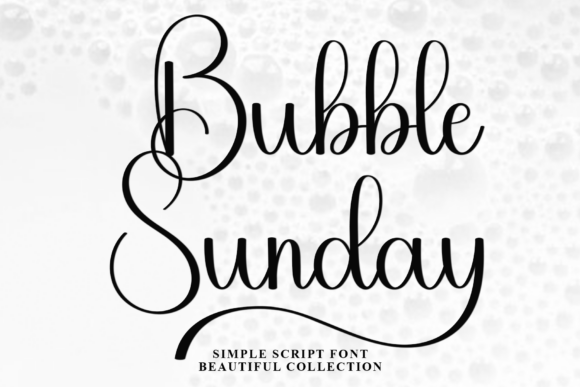
The Magic of Bubble Sunday Font: A Designer’s Delight
I’ll never forget the time I was working on a branding project for a trendy new cafe, and I just couldn’t find the right font to capture their playful yet sophisticated vibe. That was until I stumbled upon Bubble Sunday, a lovely and timeless handwritten font that instantly elevated my design game. In this article, I’ll share my love for this font, its features, and provide a comprehensive guide on how to use it to take your designs to the next level.
An Honest Review of Bubble Sunday Font
Bubble Sunday is a beautiful, handwritten font that has won my heart with its unique charm. Here’s what I love about it:
• ✨ Unique and beautiful touch: Every letter has a distinct character that adds a personal touch to your designs.
• 💫 Versatile: Perfect for creating eye-catching logos, branding, quotes, and more.
• 👍 Timeless: This font never goes out of style, making it a great investment for any designer.
While Bubble Sunday is an amazing font, it’s not without its quirks. Here are a few things to keep in mind:
• ⚠️ Occasional kerning issues: As with any font, you may need to adjust kerning for optimal results.
The Story Behind Bubble Sunday Font
Bubble Sunday was created by a talented font designer who wanted to craft a font that would bring a touch of whimsy to designs. Inspired by classic handwritten fonts, Bubble Sunday is a modern take on traditional typography.
What is Bubble Sunday Font? Bubble Sunday Font is a lovely and timeless handwritten font perfect for creating eye-catching logos, branding, and quotes.